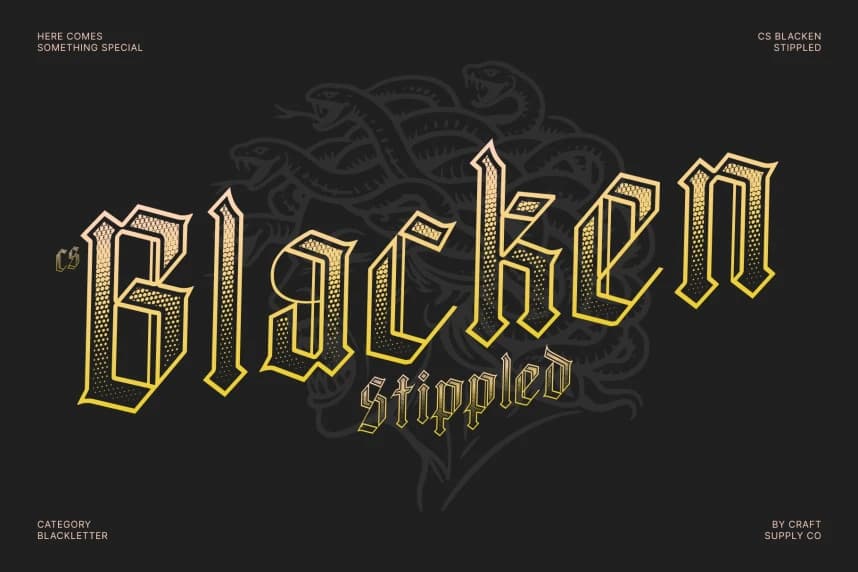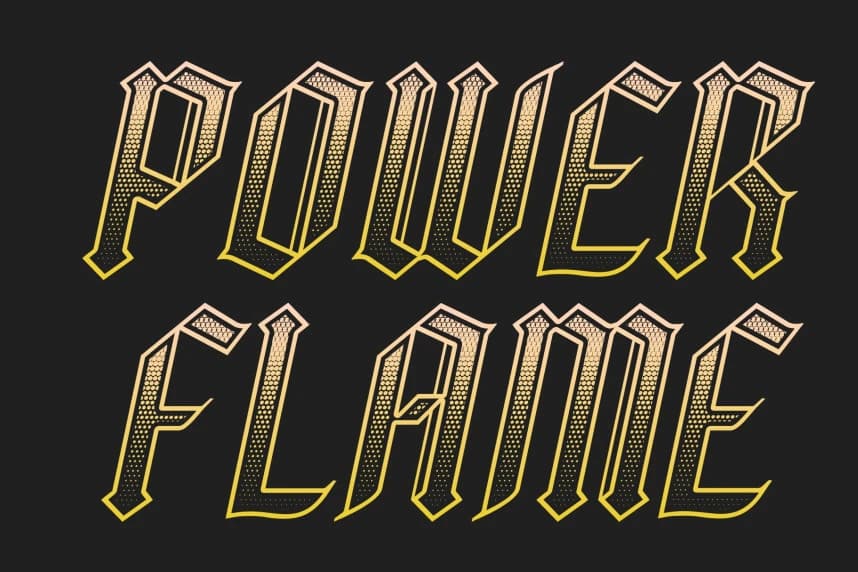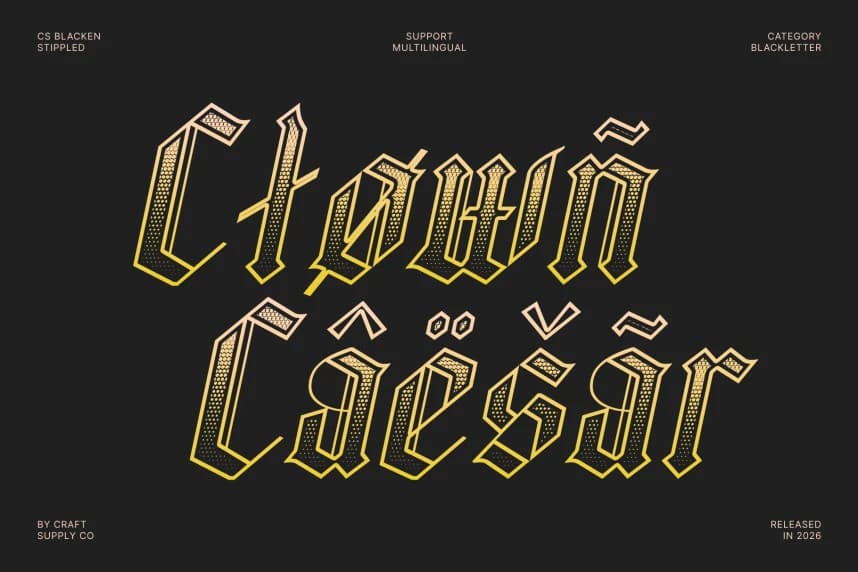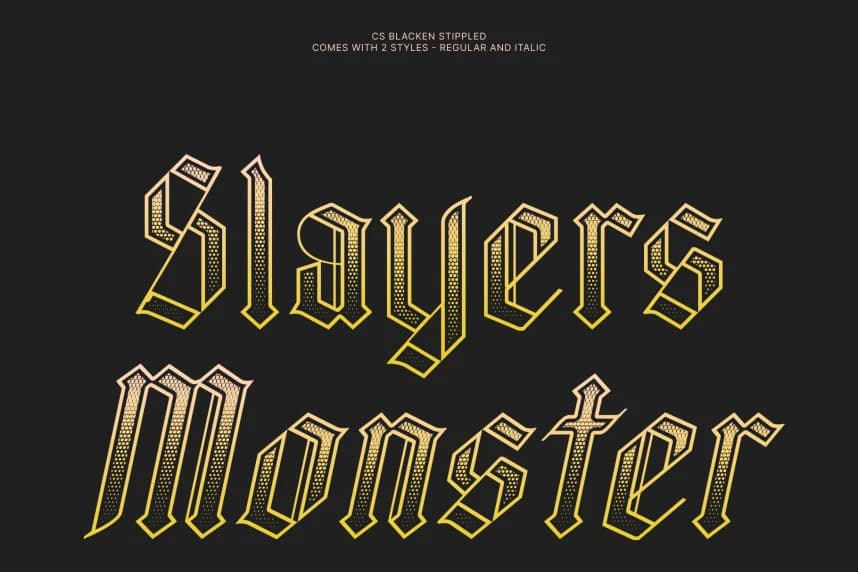
CS Blacken Stippled Font
CS Blacken Stippled Font – Majestic Blackletter Font with Textured Grandeur Historic Grandeur with Enigmatic Presence. This is a distinguished blackletter serif font that blends historical grandeur with an atmospheric sense of mystery.